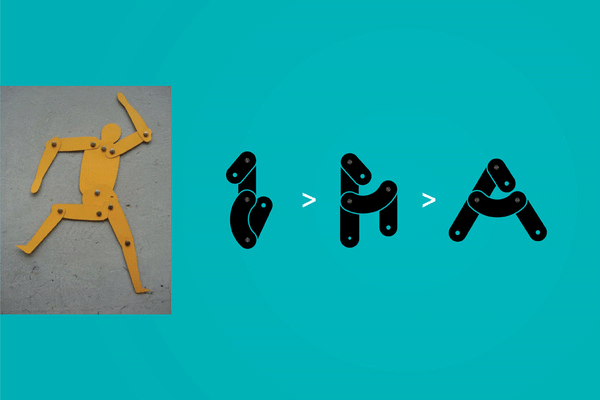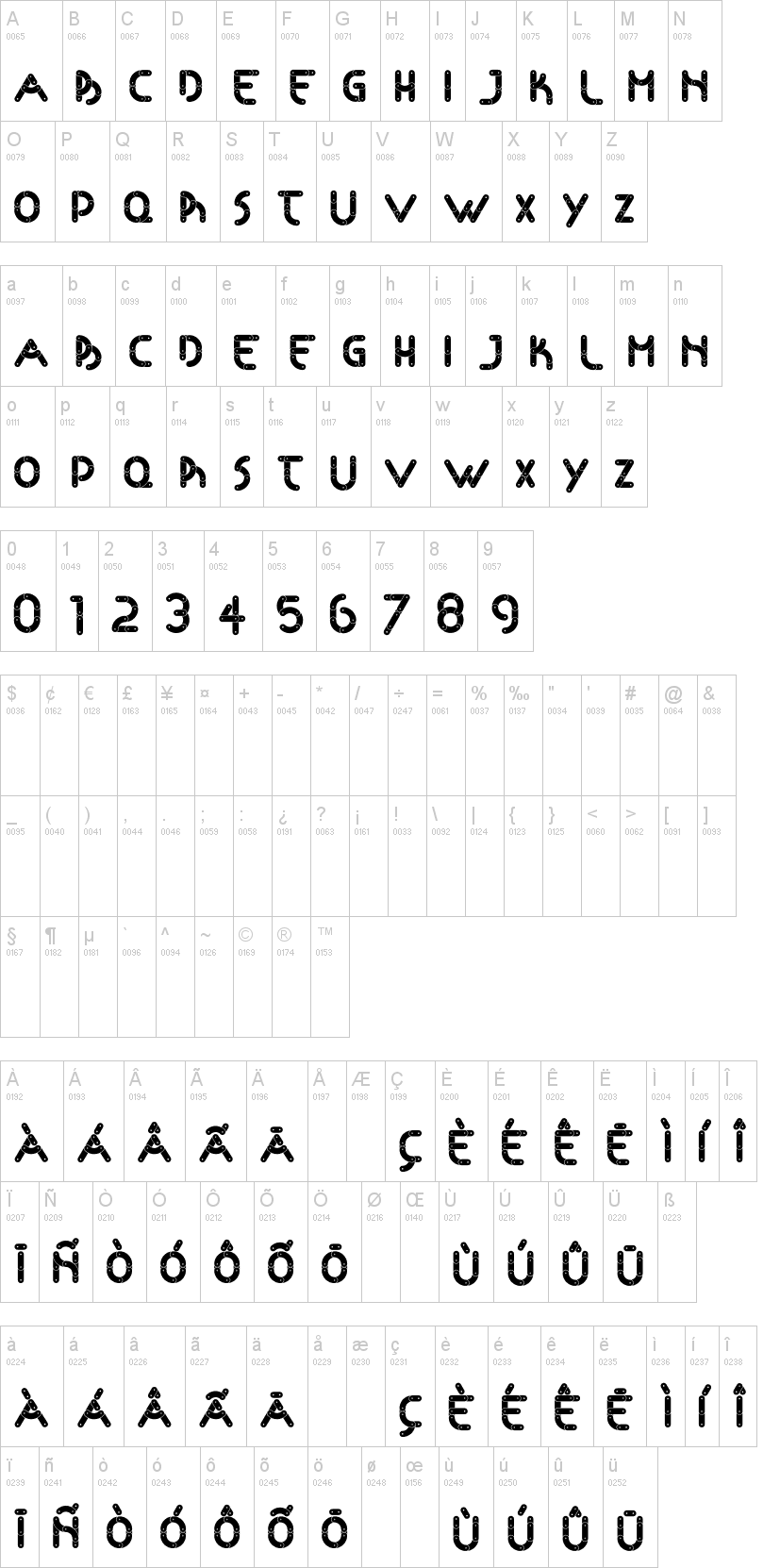
Note of the authorFrom the perfection of imperfection is arises the Articulada, a experimental typography inspired by children with different capabilities.
What inspires us? Since children were trained to prefer the perfect, to the different. Is nature beautiful because it is symmetrical or because it is harmonious and structured spontaneously?
In the process of generation of Articulada, I was inspired by the similarity of the human body with the typographic. And I identified in the articulated doll, the "driving force" of children any disability: the joy of being uniques.
The 3 pieces that form all characters of Articulada, provides special aspects: their heights vary between letters and their endings, emphasize the motricity.